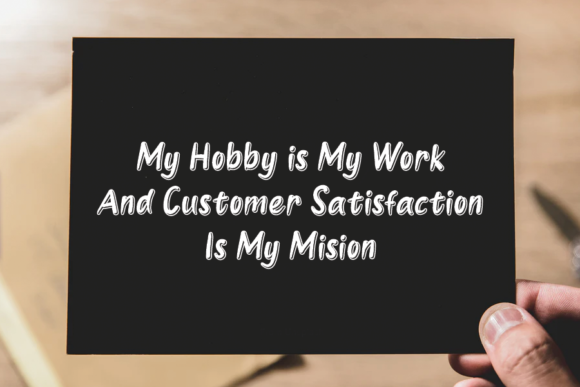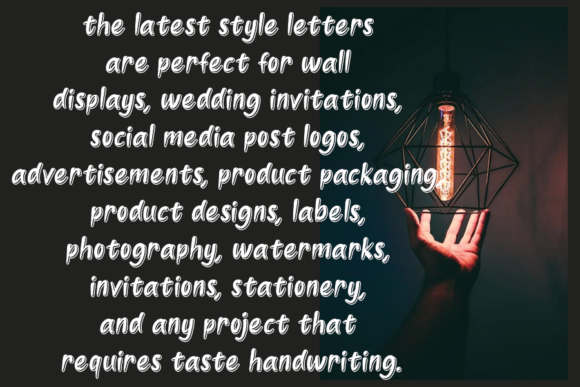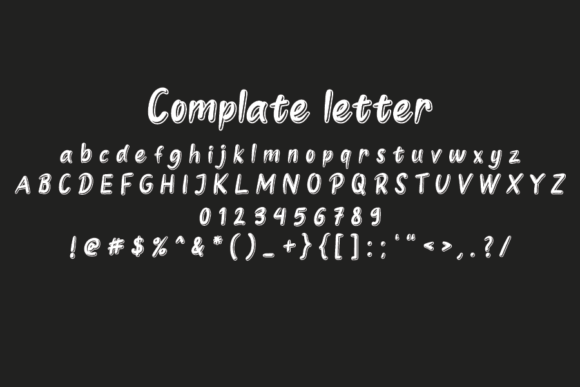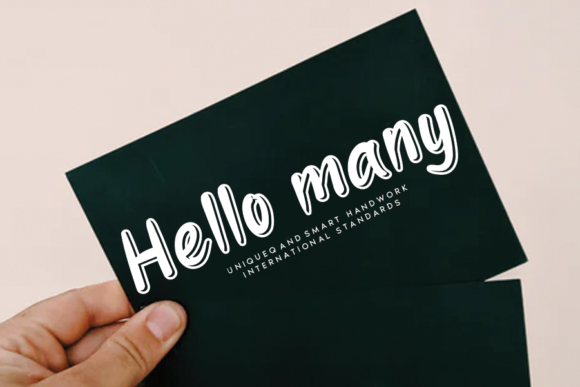
Introduction to Hello Many Font
Hello Many is a flowing display font.
Fall in love with its incredibly versatile style and use it to create gorgeous wedding invitations, beautiful stationary art, eye-catching social media posts, and much more .
Why Choose Hello Many Font?
Hello Many Font offers exceptional quality and versatility, making it a valuable addition to your design toolkit. Whether you’re creating for personal projects or commercial use, Hello Many Font delivers professional results.